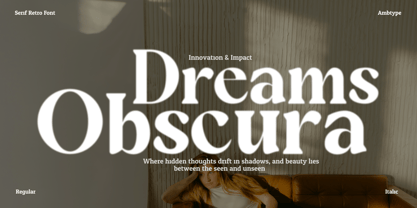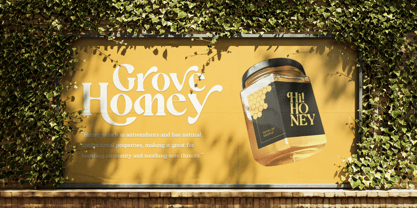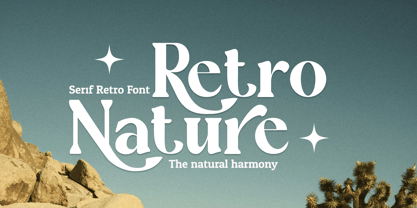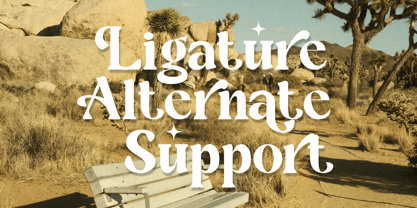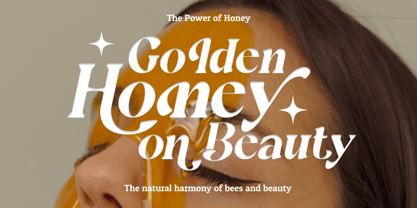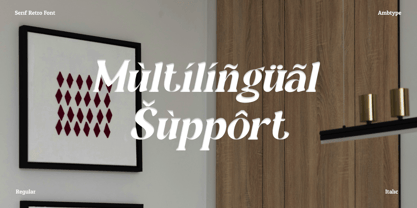
Grove Honey
by Ambtype Studio
The Grove Honey Font Family was designed by William Rizky Bahari and published by Ambtype Studio. Grove Honey contains 2 styles and family package options. More about this family
Grove Honey is a bold serif typeface with a soft and approachable twist. Every letter is crafted with rounded, stubby serifs and gently curved terminals, giving the font a warm, almost handcrafted personality. Its boldness commands attention, while its softened details keep it friendly and inviting.
This typeface comes with a full set of stylistic alternates, allowing designers to create dynamic and expressive compositions. Whether you're working on a bold brand identity, editorial layout, or playful packaging, Grove Honey adds a sense of charm and individuality to your typography.
Thoughtfully designed ligatures and multilingual support make it both versatile and functional across a wide range of design contexts. Grove Honey is perfect for creatives looking to add a confident yet personable touch to headlines, logos, and visual storytelling.